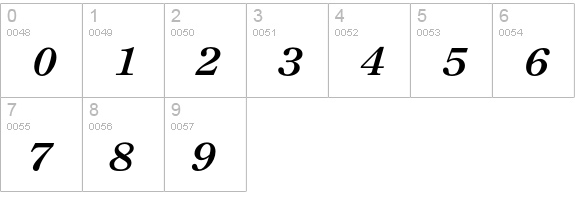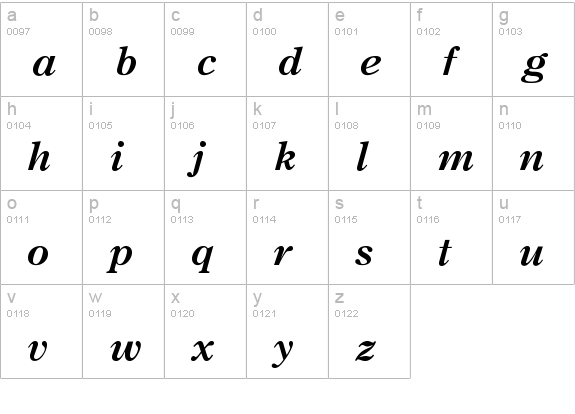
Century Old Style Bold Italic is a strong, high-contrast, italic variant in the Century typeface family \xE2\x80\x94 well suited to headlines, attention-grabbing titles, and strong calls-to-action.
Introducing Century Old Style Bold Italic font, a timeless and elegant typeface that exudes sophistication and class. With its striking bold weight and elegant italicized style, this font is perfect for adding a touch of luxury to your designs. Whether you're working on a vintage-inspired project or a modern branding campaign, Century Old Style Bold Italic font is sure to make a statement. What's even better is that Century Old Style Bold Italic font is available for free download at FontsMarket.com. This means you can easily access this beautiful typeface and incorporate it into your projects without any cost. So why wait? Download Century Old Style Bold Italic font today and elevate your designs with its classic charm and allure.